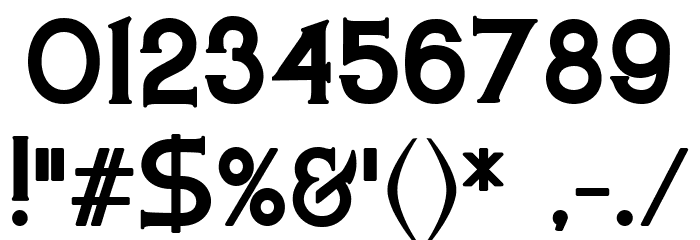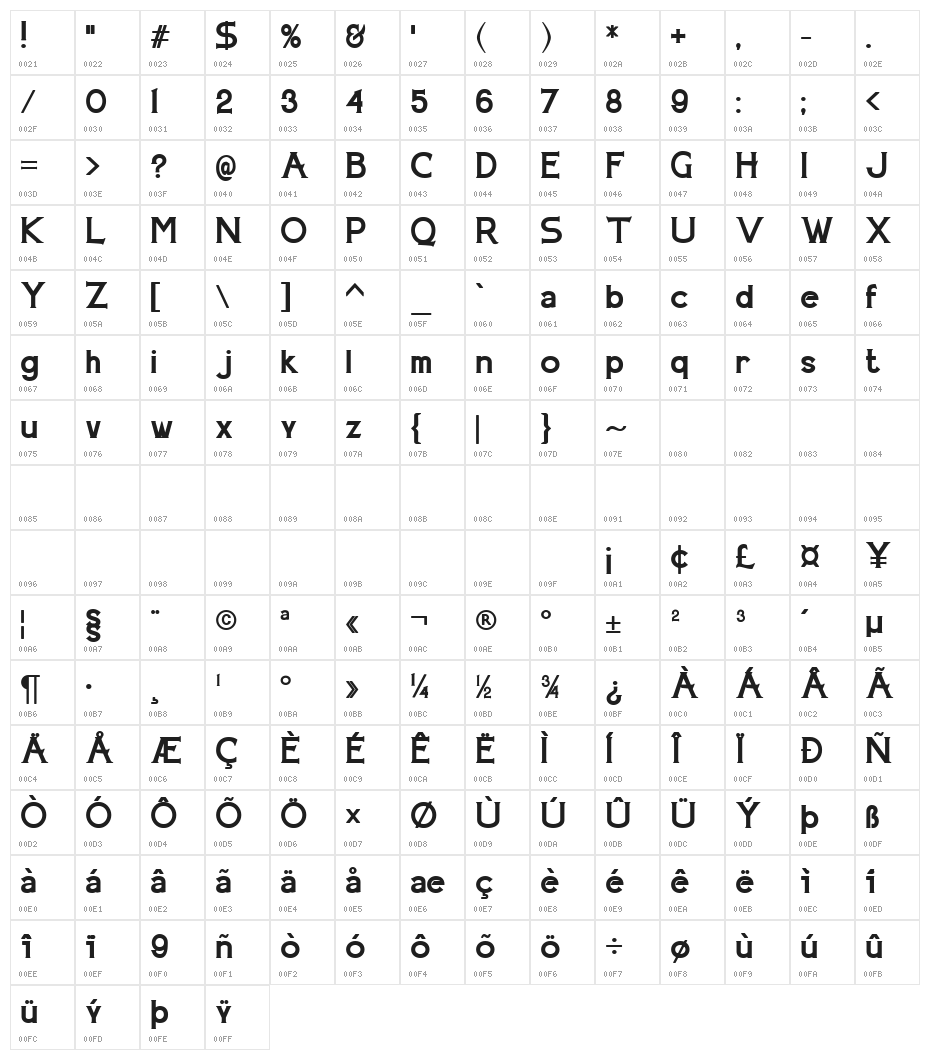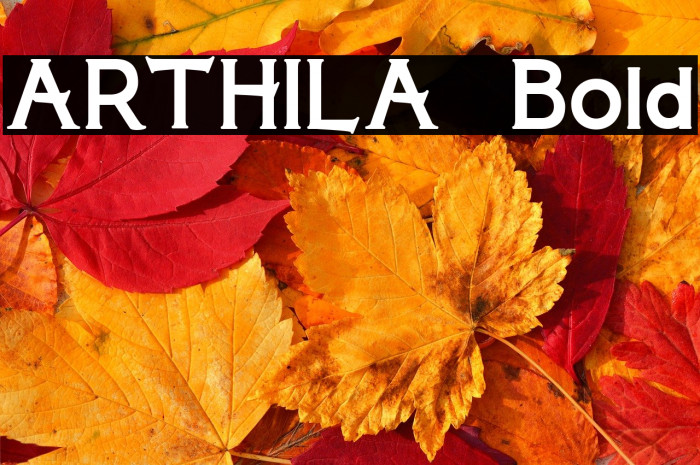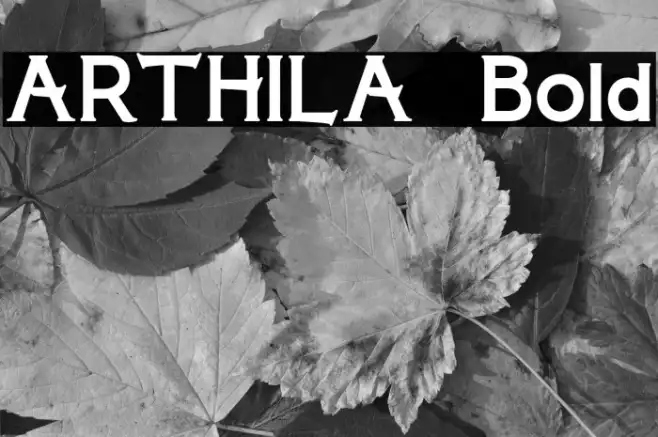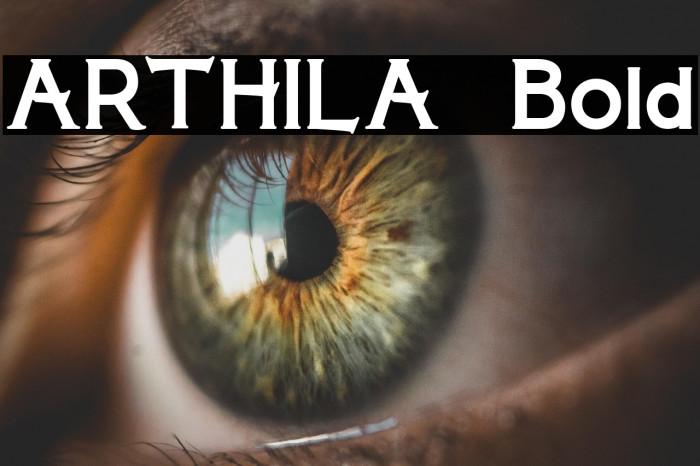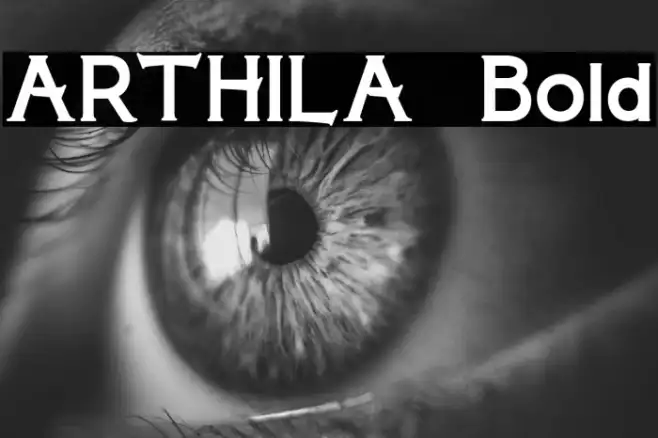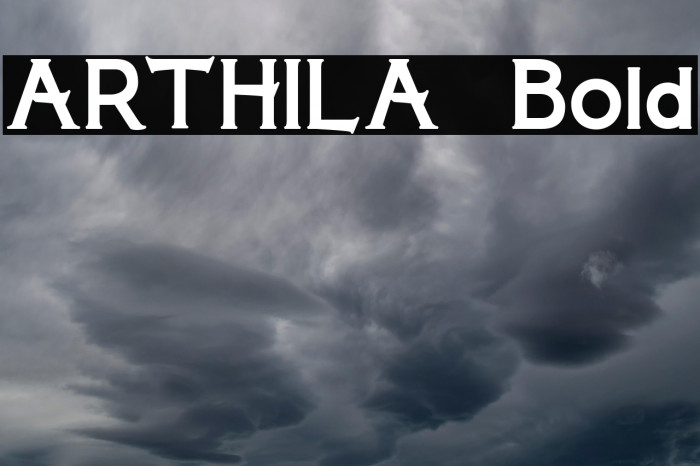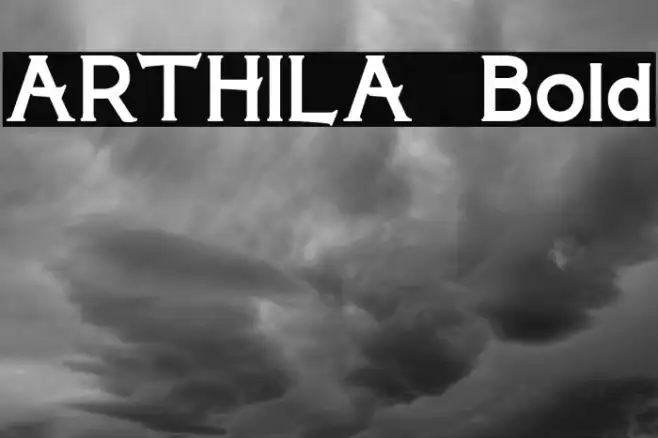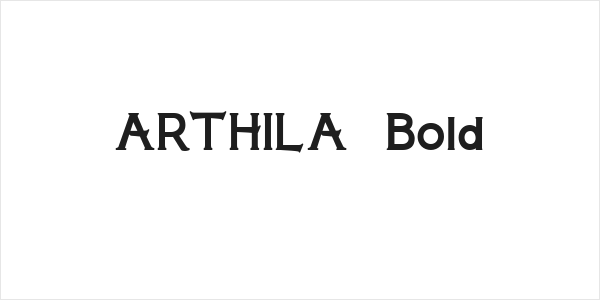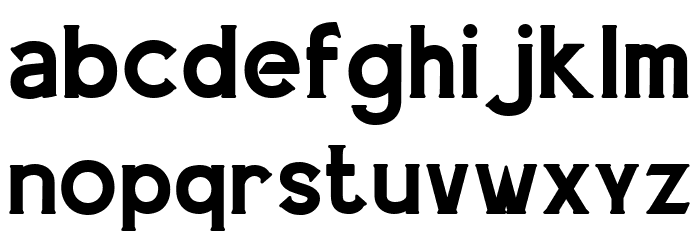
ARTHILA Bold Font
ARTHILA Bold Description
This font features a bold and striking design with a strong presence. The uppercase letters exhibit a unique angular style, giving them a modern and edgy appearance. The lowercase letters maintain a consistent boldness, ensuring readability while retaining a distinctive character. The numerals are well-proportioned and align seamlessly with the overall design. Special characters are crafted with attention to detail, complementing the font's bold aesthetic. This font is ideal for projects that require a strong visual impact, such as branding, headlines, and advertising materials.
| Proposed Projects | Ideal for branding, headlines, advertising, and any project needing a strong visual impact. |